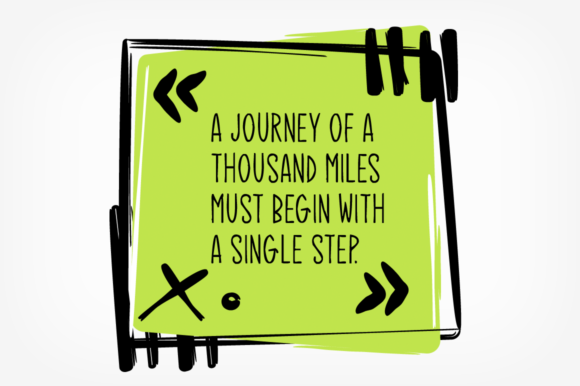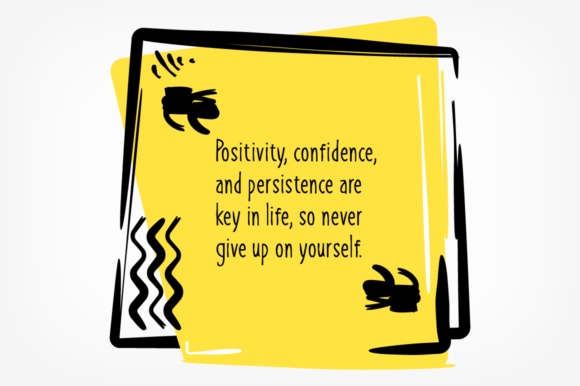
Introduction to Moonlight Dreamer Font
Have you ever been lost in the magic of a full moon night, surrounded by twinkling stars and the soft glow of a dreamcatcher? It’s in those moments of whimsy and wonder that inspiration strikes, and your creative mind starts to wander. For designers, it’s those sparks of imagination that lead to something truly special – a unique design that stands out from the crowd.
That’s exactly what the Moonlight Dreamer Font is all about – capturing the essence of creativity and playfulness in a clean, yet quirky design. As a free download, this high-quality font is a valuable resource for designers looking to add a touch of whimsy to their projects. With its transparent background and endless possibilities for customization, Moonlight Dreamer Font is the perfect companion for any creative project.
Whether you’re working on a logo, branding, social media, or crafty DIY project, this font is sure to bring a smile to your face and a touch of magic to your design.
Key Features of Moonlight Dreamer Font
- High-quality, elegant font design perfect for creative projects and design resources.
- Includes a transparent background, allowing for seamless integration with various backgrounds and design elements.
- Features a unique, dreamy aesthetic with intricate details, making it ideal for projects requiring a touch of whimsy.
Honest Review: Moonlight Dreamer Font
I recently had the chance to work with the Moonlight Dreamer Font, and I must say it’s been a pleasant experience. As a designer, I’m always on the lookout for high-quality design resources that can elevate my creative projects. This font is definitely one of them.
One of the standout features of the Moonlight Dreamer Font is its beautiful, dreamy aesthetic. It’s perfect for projects that require a touch of whimsy and elegance. The font is available for free download, making it an excellent choice for designers on a budget.
- Beautiful, dreamy aesthetic
- No transparent background option
- Not ideal for projects that require a bold, modern look
Overall, I’m quite impressed with the Moonlight Dreamer Font. While it may have some limitations, it’s a great choice for designers who want to add a touch of elegance and whimsy to their creative projects. With its high quality design and free download option, it’s definitely worth checking out.
Tips for Getting the Most Out of Moonlight Dreamer Font
Here are some tips to get the most out of Moonlight Dreamer Font:
- Combine Moonlight Dreamer Font with other design elements to create a cohesive look.
- Use Moonlight Dreamer Font to create a transparent background effect.
Moonlight Dreamer Font is ideal for a variety of design projects, including:
- Party decorations and signage.
- Business cards and marketing materials.
- Photography captions and quotes.